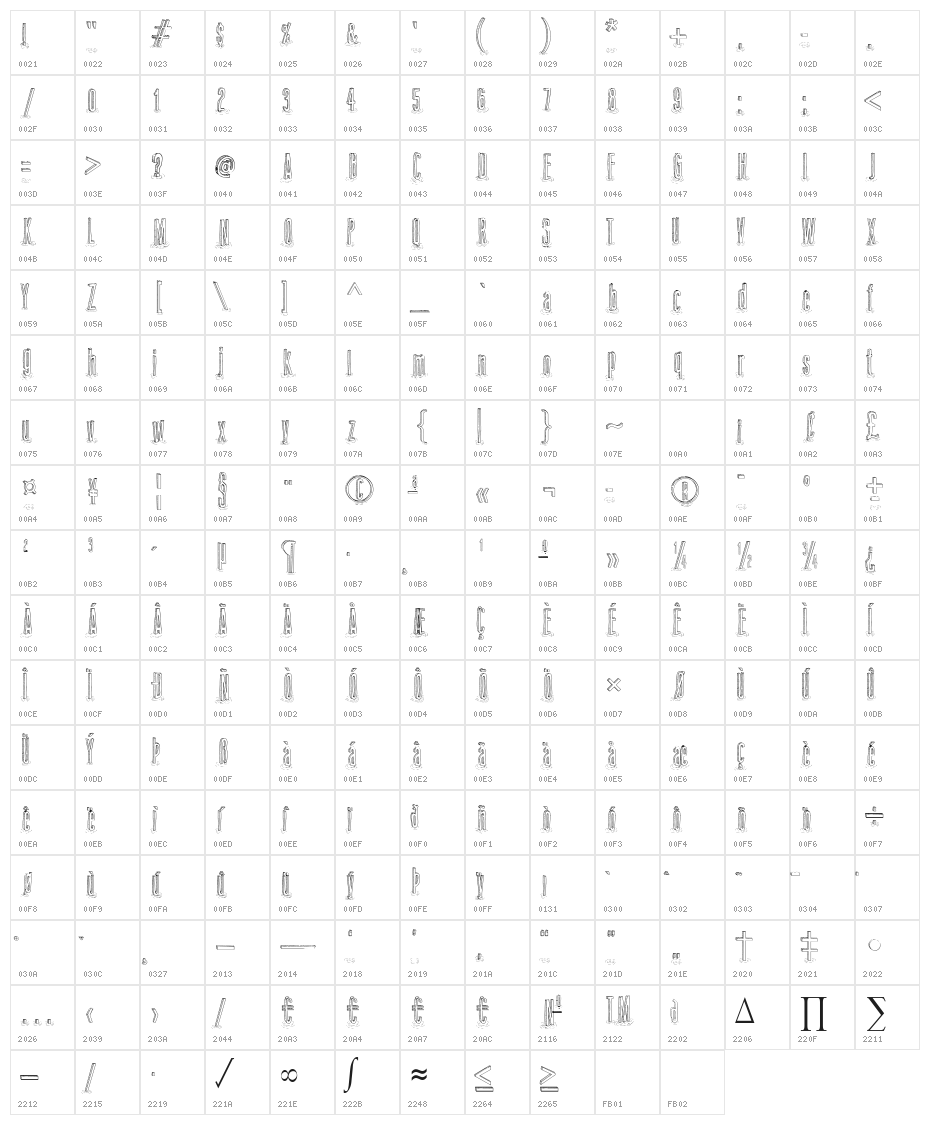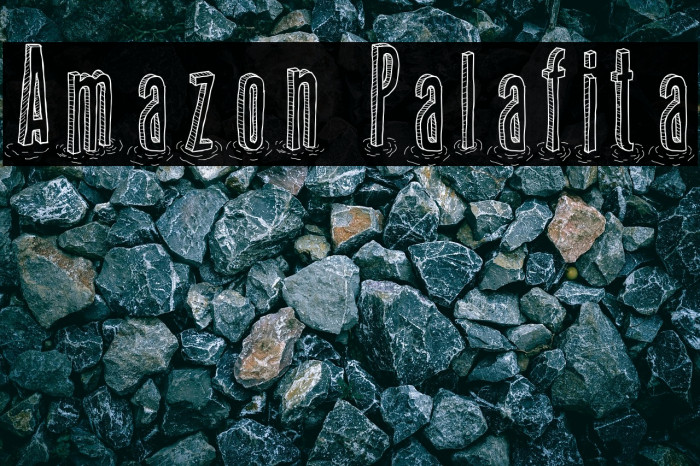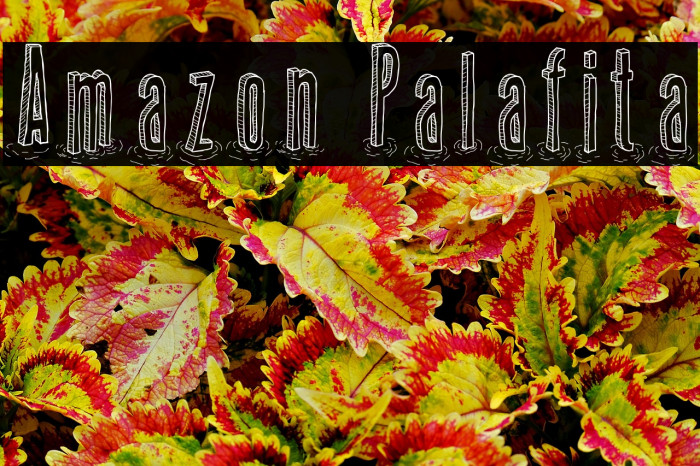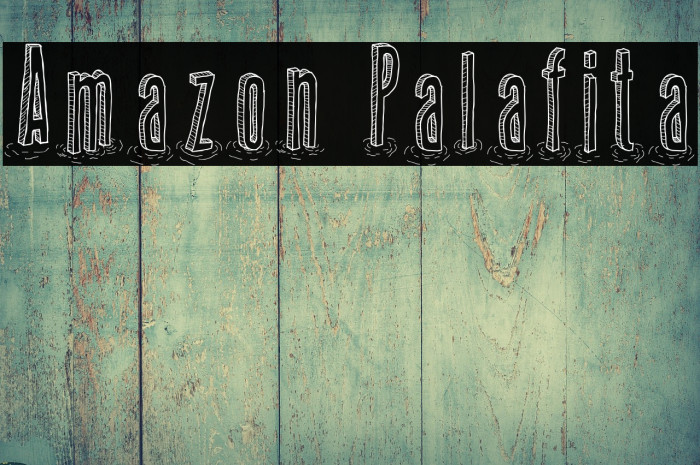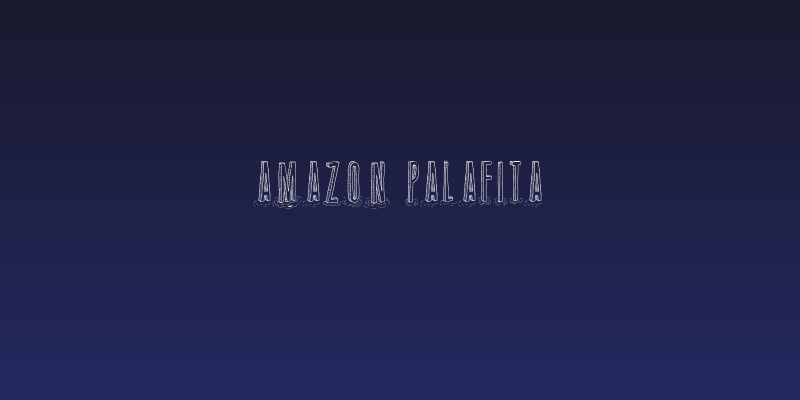
Amazon Palafita Font
Amazon Palafita Description
This font features a unique, decorative style with a hand-drawn appearance. Each character is outlined with a shadow effect, giving a three-dimensional look. The letters are tall and narrow, with a playful, wavy baseline that adds a whimsical touch. The font includes both uppercase and lowercase letters, numerals, and a variety of special characters. Its artistic design makes it stand out, suitable for creative and eye-catching projects.
| Proposed Projects | Ideal for posters, greeting cards, children's books, and creative branding projects. |